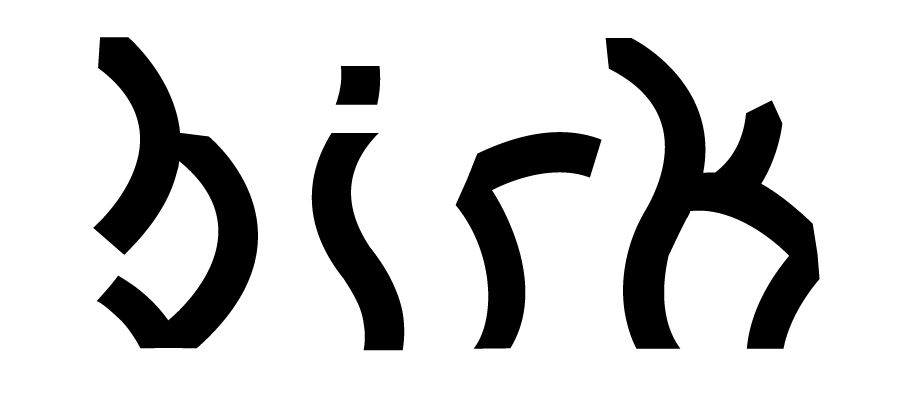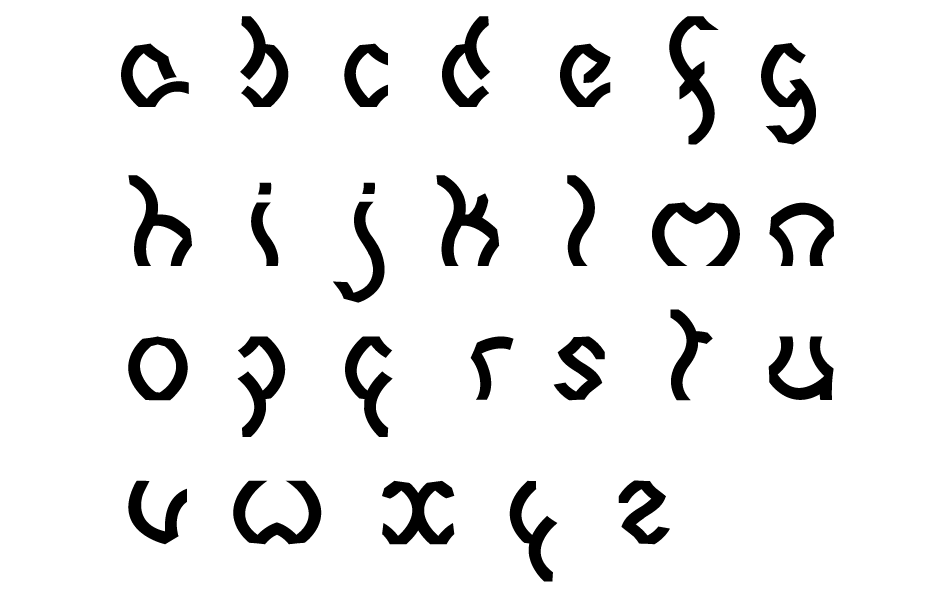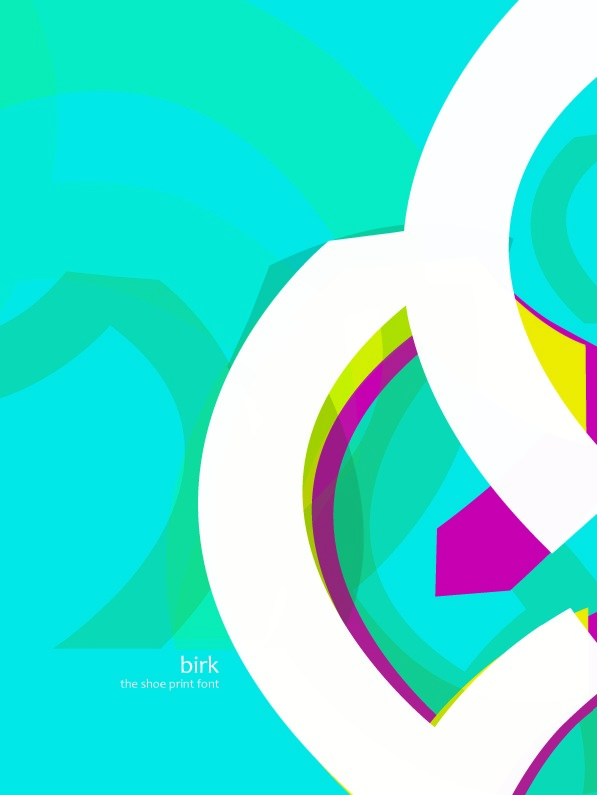
birk
by Yara Khraibani
WHEN 2010
WHERE Beirut
WHAT Inspired by patterns of the birkenstock shoe prints.
WHO Yara Khraibani
WHAT The letters of the Birk font are abstracted forms taken from the patterns of the birkenstock shoe prints.